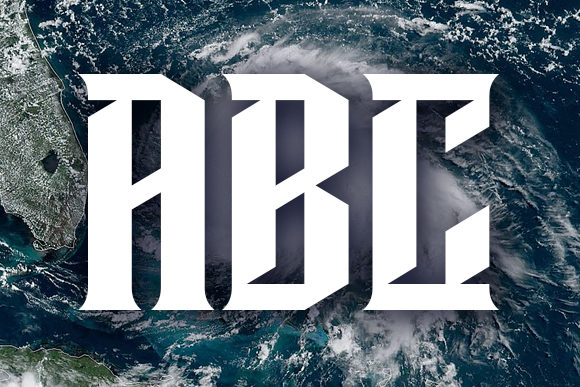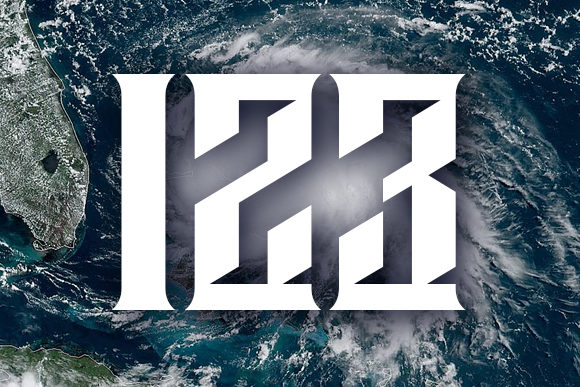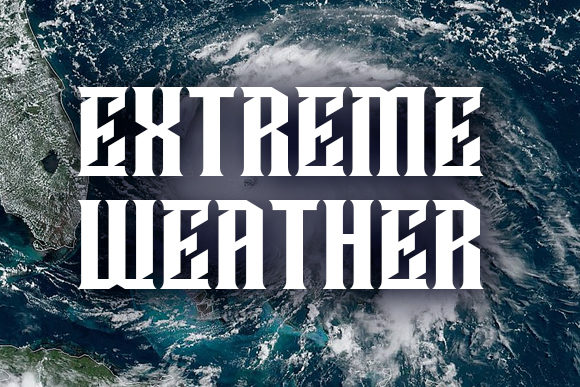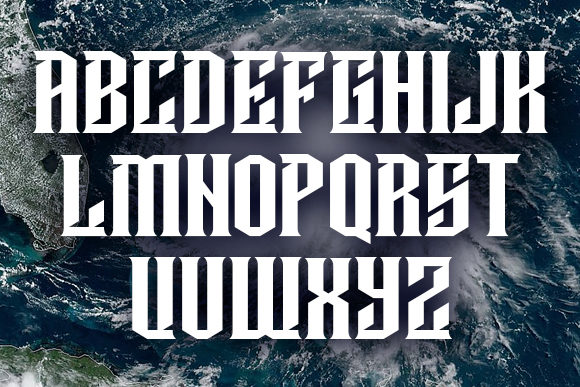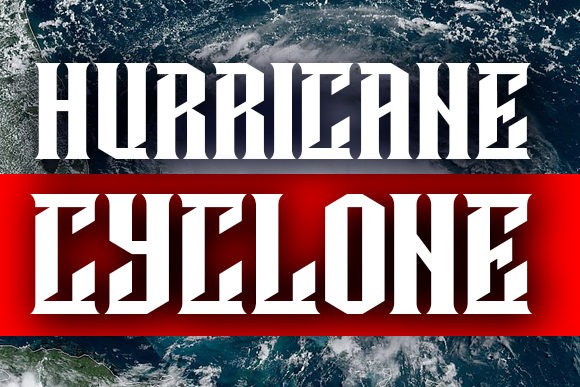
My Honest Review of Damages
So, what do I love about Damages? Here are a few things that make it a standout font:
- ✨ Bold and dramatic: Damages is a font that demands attention. Its bold lines and dramatic flair make it perfect for headlines, titles, and any other text that needs to stand out.
- ✅ Playfully conceptual: Despite its boldness, Damages has a playful side that makes it suitable for a wide range of contexts, from creative projects to branding and advertising.
- 💥 Highly versatile: Whether you’re designing a logo, a poster, or a social media graphic, Damages can handle it all.
Of course, no font is perfect, and Damages has a few quirks:
- 🤔 Limited legibility at small sizes: While Damages is stunning at large sizes, it can become difficult to read at smaller sizes. Be sure to use it at a size that showcases its beauty.
- ⚠️ Not suitable for body text: Damages is a display font, and as such, it’s not designed for long blocks of text. Stick to using it for headlines and titles.
| What is Damages font? | Damages is a bold and dramatic display font designed for headlines, titles, and other text that needs to stand out. |
| Is Damages suitable for body text? | No, Damages is a display font and is not suitable for long blocks of text. It’s best used for headlines and titles. |
| Does Damages support OpenType features? | Yes, Damages supports OpenType features, including glyphs and stylistic alternates, which can be accessed in design programs like Adobe Photoshop and Illustrator. |